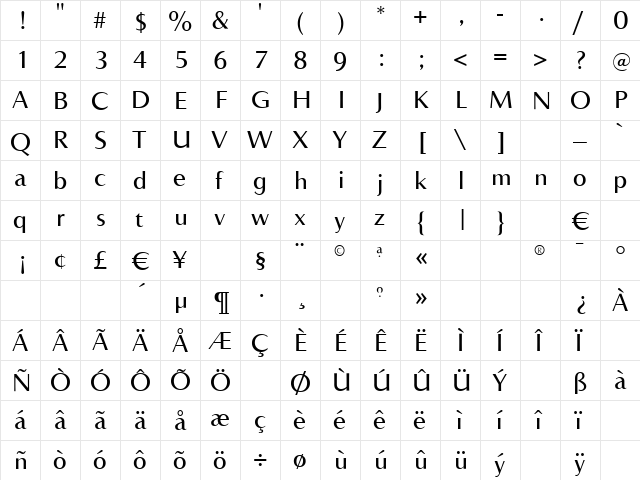
AccentGraphicMedium Regular
Design Context for AccentGraphicMedium Typeface
AccentGraphicMedium takes a measured approach to typography — its balanced proportions and neutral character make it a reliable workhorse for both digital and print work.